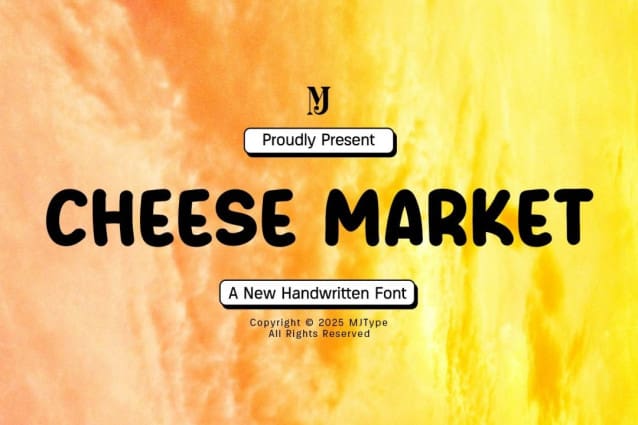
Cheese Market Font
Cheese Market Font is a chunky, comic, and cartoon display font. With its neat and joyful personality, this font will enhance any project you wish to create!